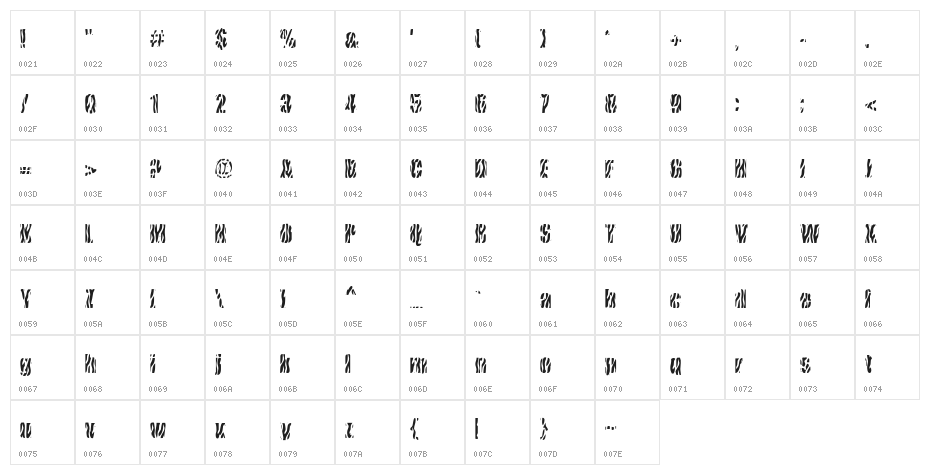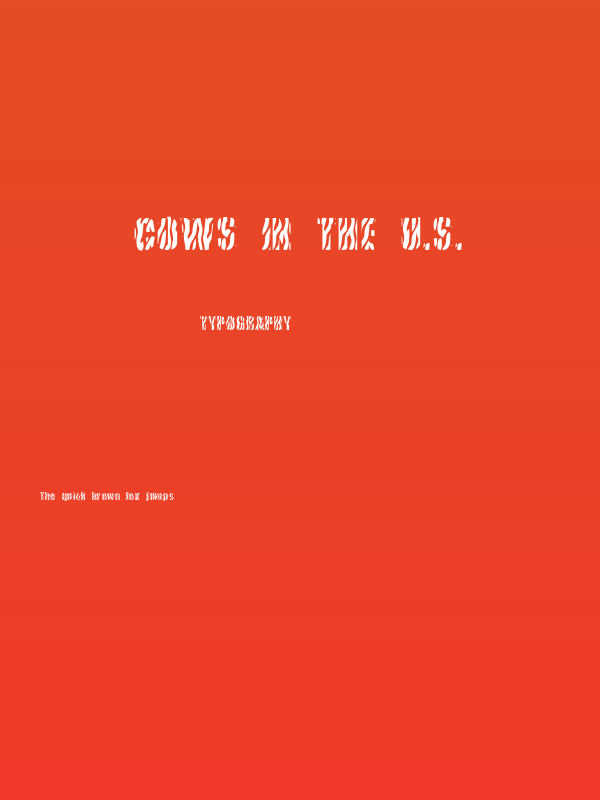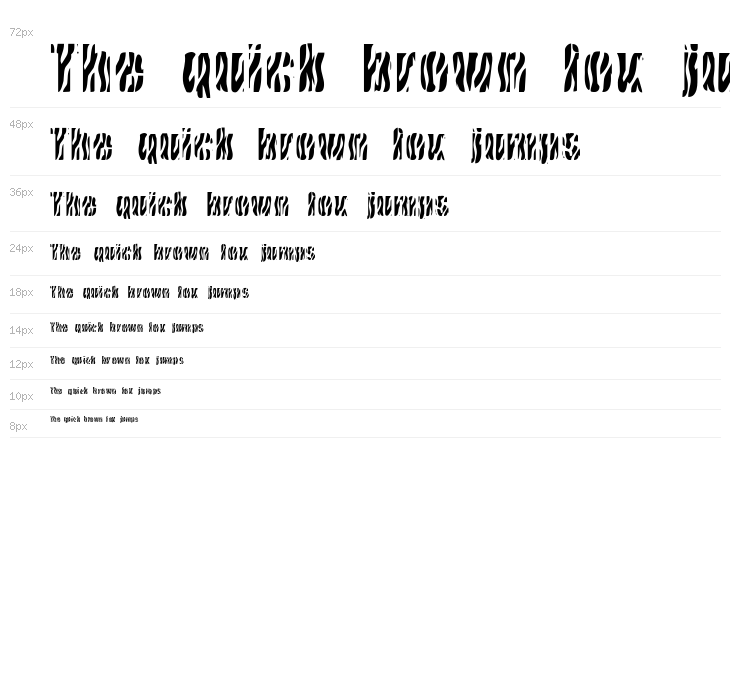
Cows In the U.S. Font
Cows In the U.S. Description
This font features a unique and playful design that mimics the patterns found on cow hides. The characters are bold and have a decorative, irregular pattern that gives them a distinctive, eye-catching appearance. The font is highly stylized, with each letter incorporating spots and patches reminiscent of a cow's markings. This creates a whimsical and fun aesthetic, making it ideal for projects that require a touch of humor or creativity. The font maintains legibility despite its decorative elements, with clear distinctions between each character. It is well-suited for use in headlines, posters, or any design that aims to capture attention with a quirky and playful style.
| Proposed Projects | Ideal for children's book covers, playful branding, themed event posters, or any design needing a fun and whimsical touch. |